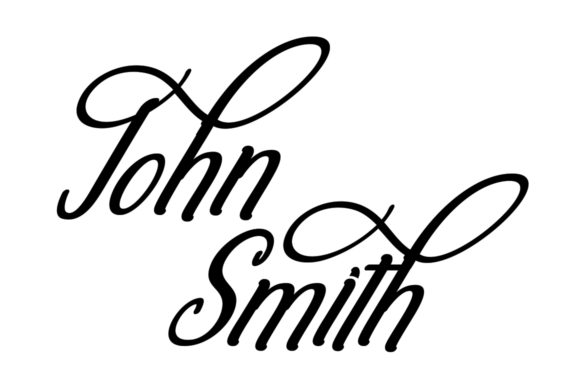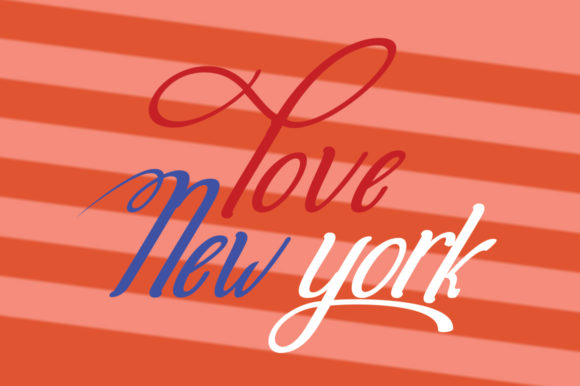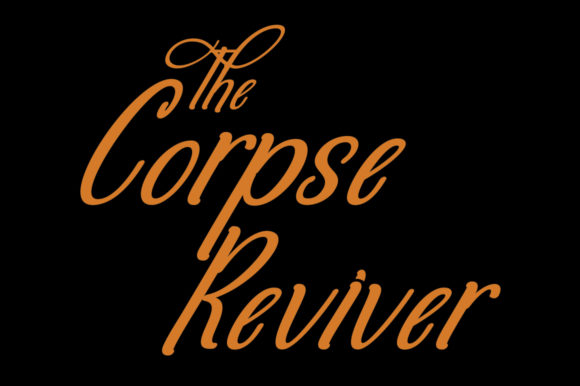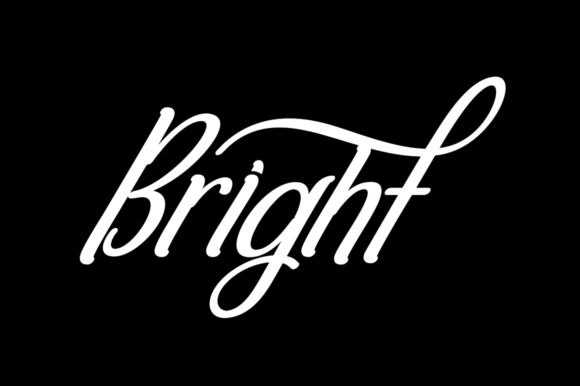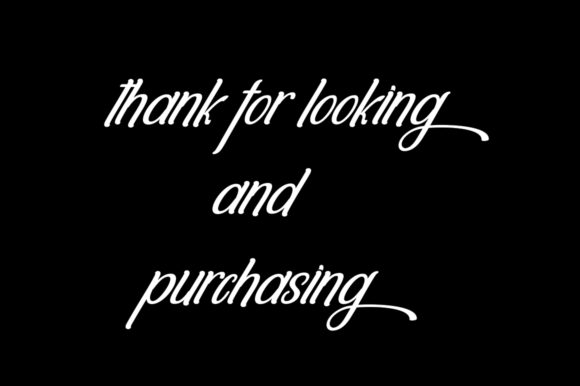
Discover the Elegance of Claudya Font: Elevate Your Designs with Sophistication
Are you looking for a font that exudes elegance and charm? Look no further than Claudya Font, a sweet and captivating script font designed to add a touch of sophistication to any creative project. In this article, we’ll dive into the world of Claudya Font, exploring its features, benefits, and uses, and provide you with inspiration on how to incorporate it into your designs.
What is Claudya Font?
Claudya Font is a beautiful script font that boasts a unique and charming aesthetic. Its elegant feel makes it perfect for a wide range of design projects, from wedding invitations and branding materials to digital content and craft projects. With its sophisticated and refined appearance, Claudya Font is sure to impress your audience and leave a lasting impression.
Key Features of Claudya Font
• Elegant and Refined: Claudya Font features a sophisticated and charming design that adds a touch of elegance to any project.
• Script Style: This beautiful script font is perfect for creating eye-catching headlines, titles, and descriptions.
• Versatile: Claudya Font can be used for a wide range of design projects, including digital content, print materials, and craft projects.
• Easy to Read: Despite its elegant and cursive nature, Claudya Font remains highly legible, making it perfect for body text and captions.
Benefits of Using Claudya Font
So, why should you choose Claudya Font for your next design project? Here are just a few benefits of using this beautiful script font:
• Adds Elegance and Sophistication: Claudya Font instantly elevates your designs, adding a touch of refinement and poise.
• Creates Emotional Connection: The charming and sweet nature of Claudya Font helps create an emotional connection with your audience, making your designs more relatable and engaging.
• Versatile and Adaptable: Claudya Font can be used in various design contexts, from formal and professional to playful and creative.
• Stand Out from the Crowd: With Claudya Font, you can differentiate your designs from others and create a unique visual identity that sets you apart.
Inspirational Ideas for Using Claudya Font
Now that you’ve discovered the beauty of Claudya Font, here are some inspirational ideas to get you started:
• Wedding Invitations and Stationery: Use Claudya Font to create stunning wedding invitations, save-the-date cards, and other stationery items that exude elegance and romance.
• Branding and Packaging: Add a touch of sophistication to your brand’s visual identity with Claudya Font, perfect for luxury brands, beauty products, and high-end services.
• Digital Content: Use Claudya Font to create engaging and eye-catching digital content, such as blog posts, social media graphics, and email newsletters.
• Craft Projects: Incorporate Claudya Font into your craft projects, such as handmade cards, scrapbooking, and DIY decorations, to add a personal and elegant touch.
In conclusion, Claudya Font is a beautiful and charming script font that can elevate your designs with its sophisticated feel. With its elegant and refined appearance, versatility, and emotional connection, Claudya Font is perfect for designers and crafters looking to add a touch of elegance to their projects. Get inspired by Claudya Font and discover the world of possibilities it offers for your next creative project!